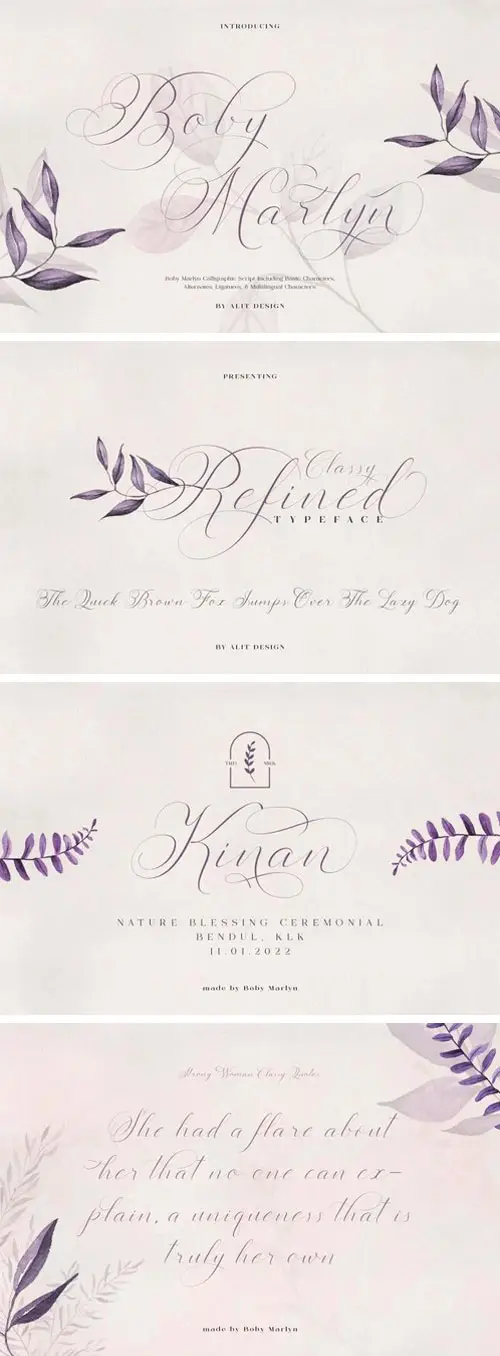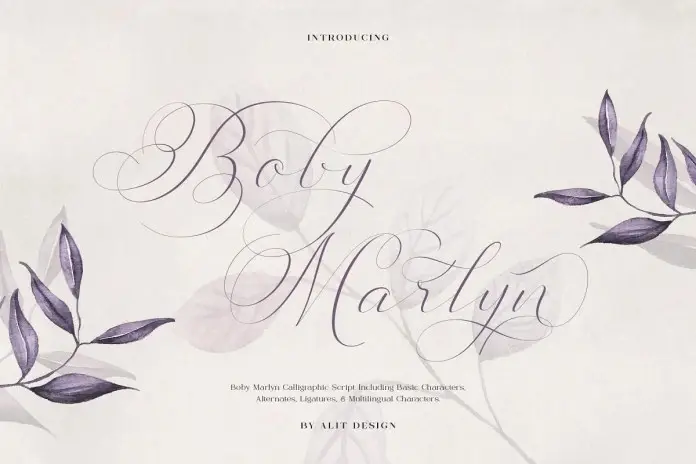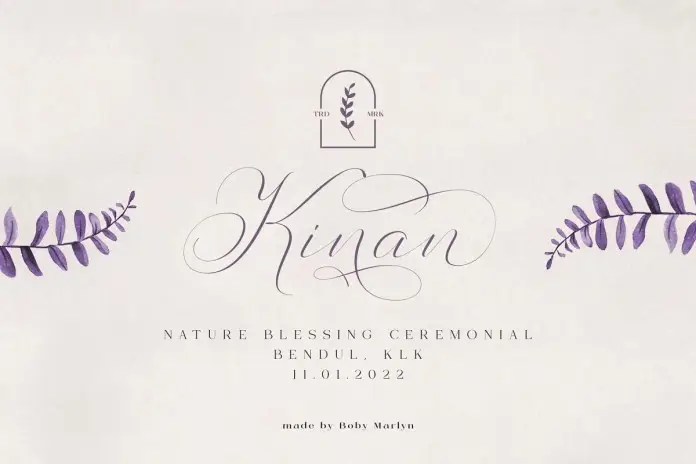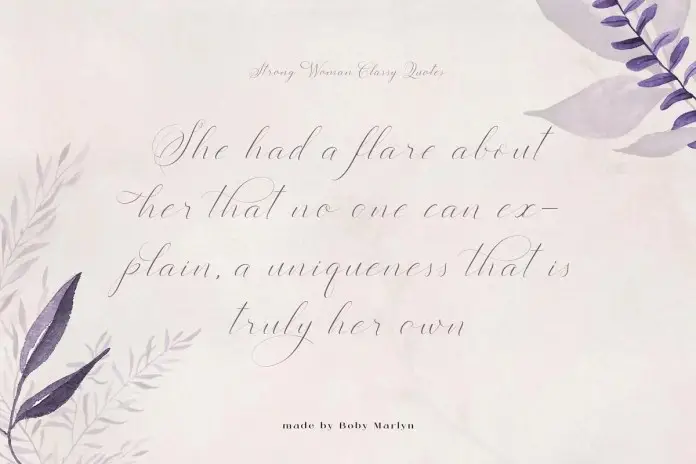
The Boby Marlyn Calligraphy Font is a beautifully crafted typeface that embodies elegance and sophistication. Perfect for a wide range of applications, this font is ideal for branding, logos, invitations, and more.
- Stylish calligraphy design
- Supports multilingual characters
- Easy to read and visually appealing
- Weights: Regular, Bold
- Ideal for creating elegant branding materials
- Use in wedding invitations and event stationery
- Perfect for social media graphics and promotional content
Boby Marlyn Calligraphy Font